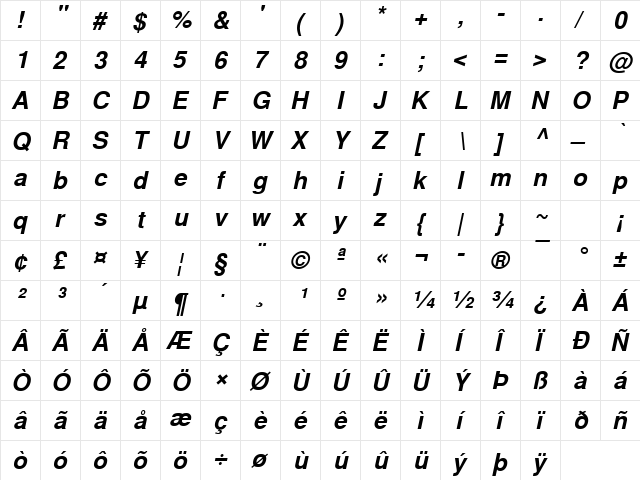
NimbusSanL Bold Italic
Design Context for NimbusSanL Typeface
NimbusSanL offers clean, dependable letterforms without strong stylistic allegiance, making it a practical choice for designers who need flexibility. The slanted form adds forward momentum and visual energy. Its bold stroke weight gives it real presence on the page.
Pro Tip: Use NimbusSanL for emphasis, pull quotes, and subheadings where its slanted energy can add rhythm to the layout.